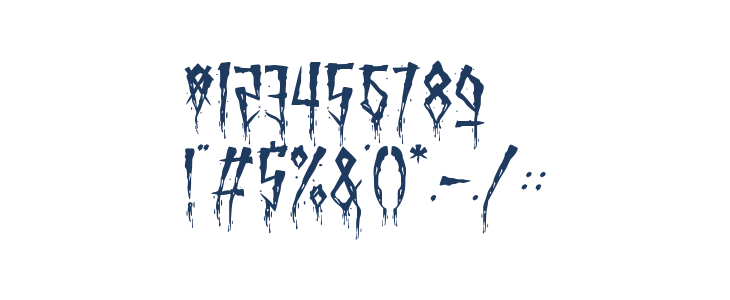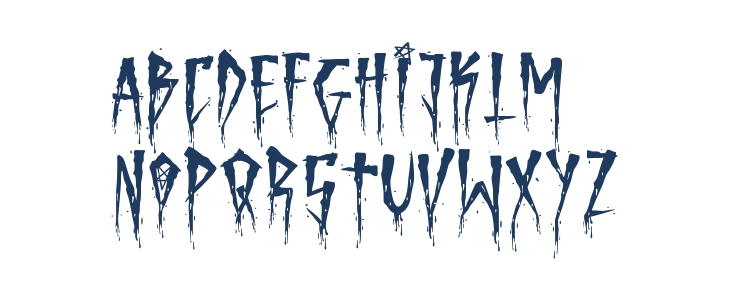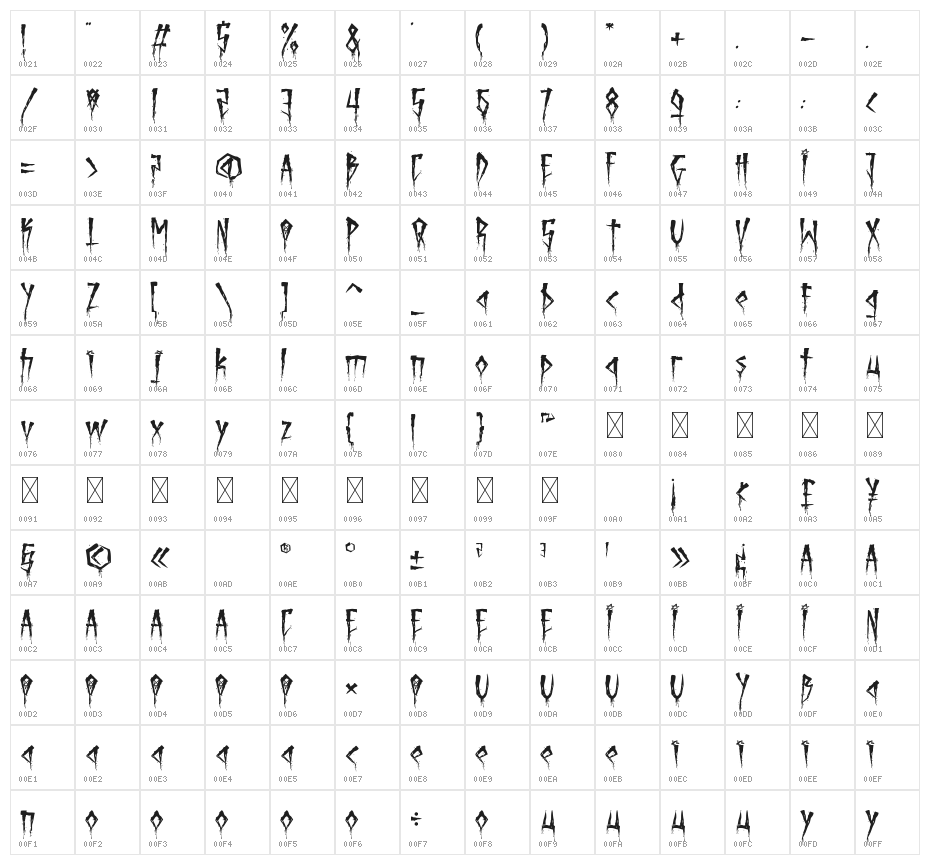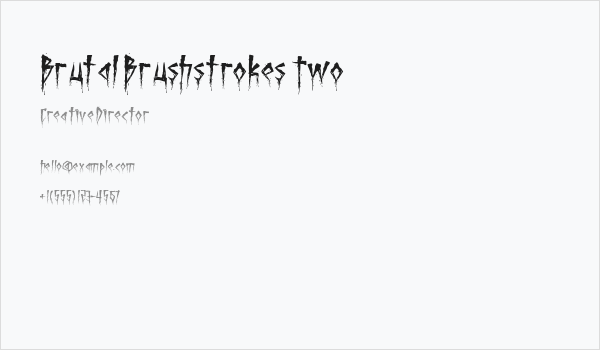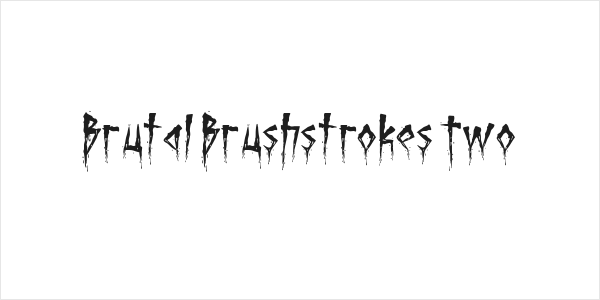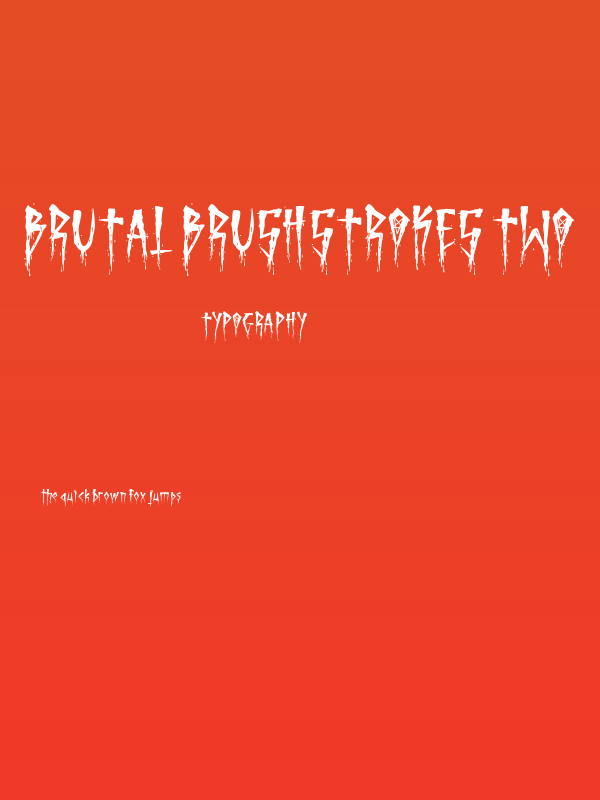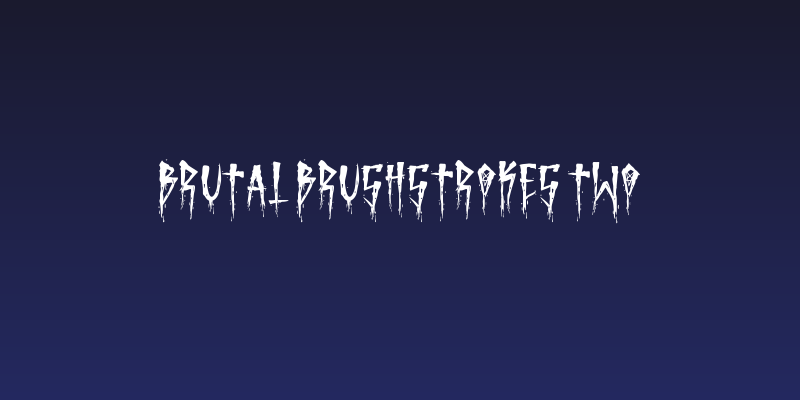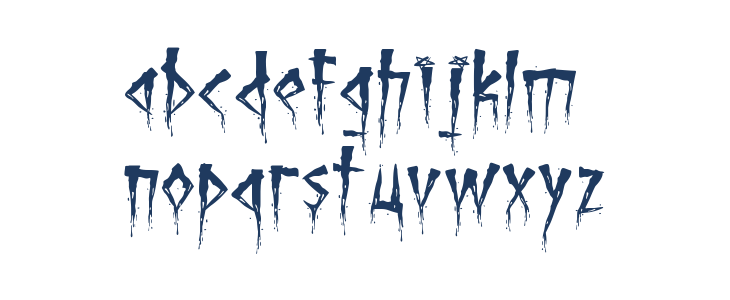
Brutal Brushstrokes Two Font
Brutal Brushstrokes Two Description
A highly expressive, jagged brushstroke style font with uneven, dripping strokes and an aggressive, chaotic appearance. The letterforms are tall, narrow, and irregular, with rough edges and a hand-drawn, distressed texture.
| Overall Style | Decorative, Grunge, Horror |
| Use Case | Headlines, Posters, Logos |
| Proposed Projects | Horror movie posters, Halloween event flyers, band logos, edgy branding, alternative magazine covers. |